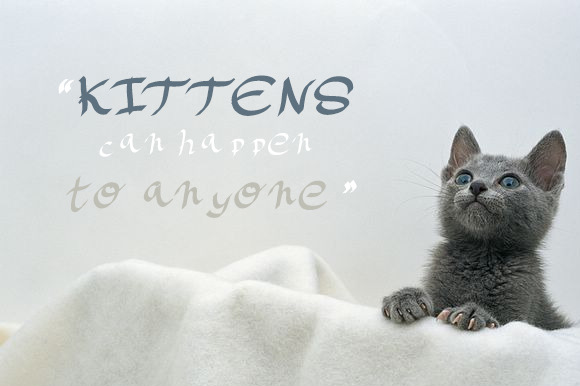
Casual Handkitten Font Family
Casual Handkitten font family is a handmade script font with the full 217 glyphs and with three weights; Regular, demi-bold & black.
Great for quotes, casual advertisements, femenine and infantile titles or even logos.